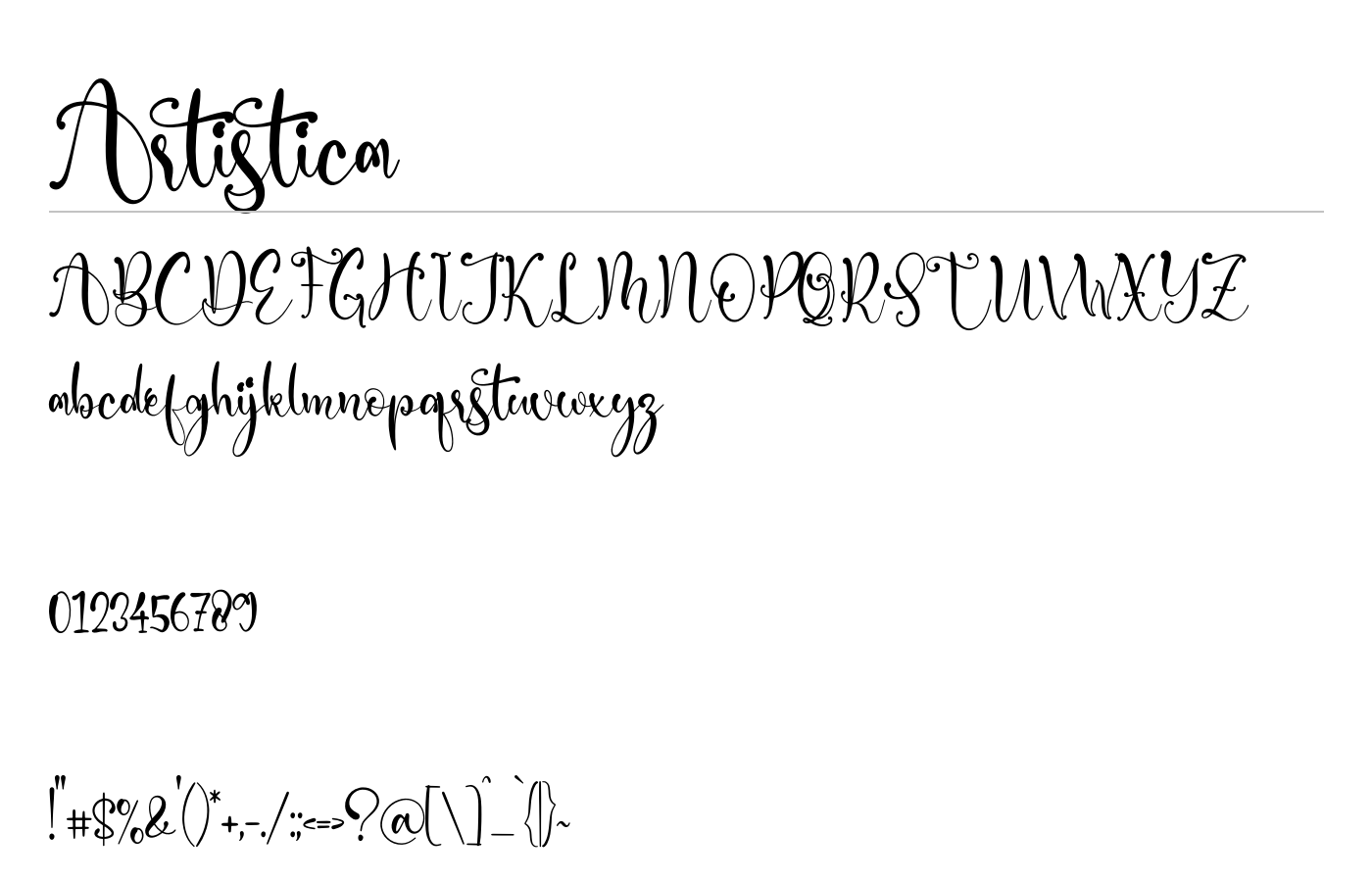
Artistica is a playful and elegant script font with a hand-drawn feel, featuring slender, flowing strokes and whimsical flourishes that add charm and personality. Its delicate yet expressive letterforms make it perfect for creative projects such as invitations, branding for artistic or lifestyle products, and decorative headlines, where a personal and stylish touch is desired. This font combines readability with artistic flair, bringing warmth and sophistication to any design.
Artistica Font
About Artistica Font